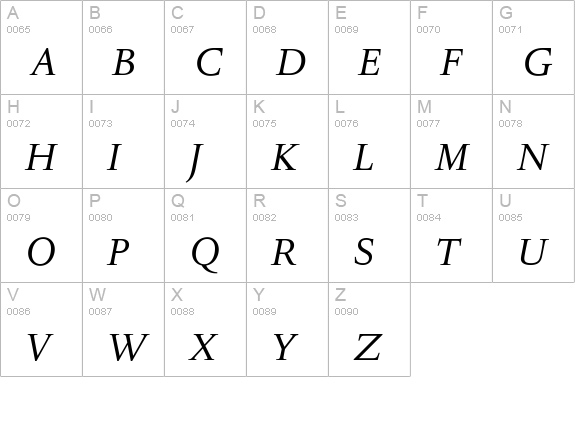
DTL Romulus T Italic Font Details
DTL Romulus T Italic is a distinctive, italic variant in the DTL typeface family \xE2\x80\x94 well suited to design and typography projects.
The DTL Romulus T Italic font is a stylish and elegant typeface that exudes sophistication and class. Its sleek and modern design is perfect for adding a touch of sophistication to any project. The italic style of this font adds a dynamic and fluid look, making it ideal for use in headings, titles, and other design elements where you want to create a sense of movement and emphasis. What sets the DTL Romulus T Italic font apart is its versatility and readability. Whether you're designing a magazine layout, creating a logo, or working on a branding project, this font will make your text stand out and grab attention. Its clean lines and balanced proportions ensure that your message is clear and easy to read, even at smaller sizes. The best part? The DTL Romulus T Italic font is available for free download at FontsMarket.com. So you can add this stunning typeface to your font collection without breaking the bank. Don't miss out on the opportunity to elevate your designs with the DTL Romulus T Italic font today.